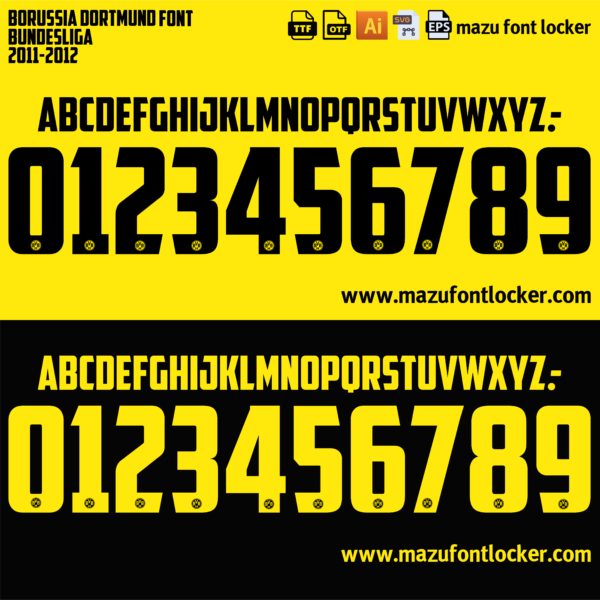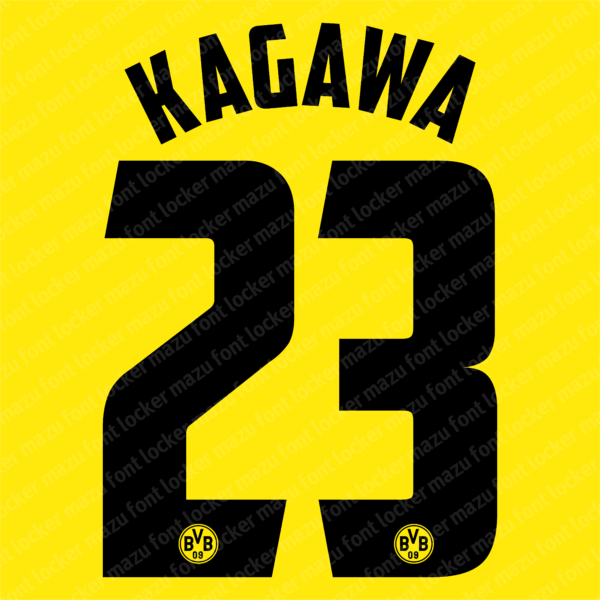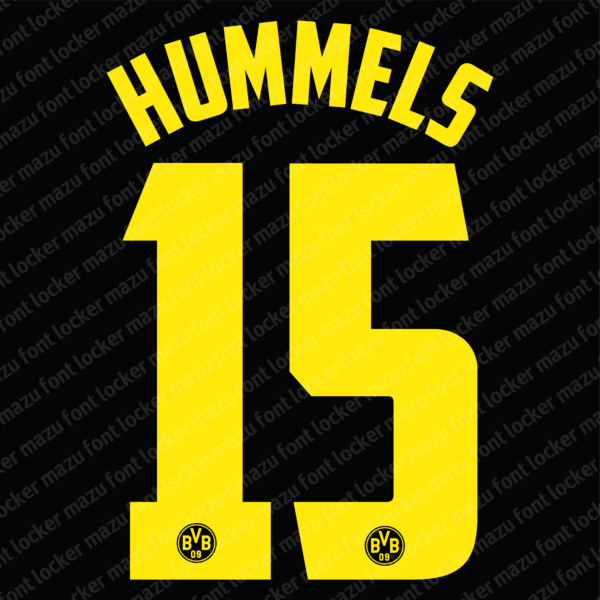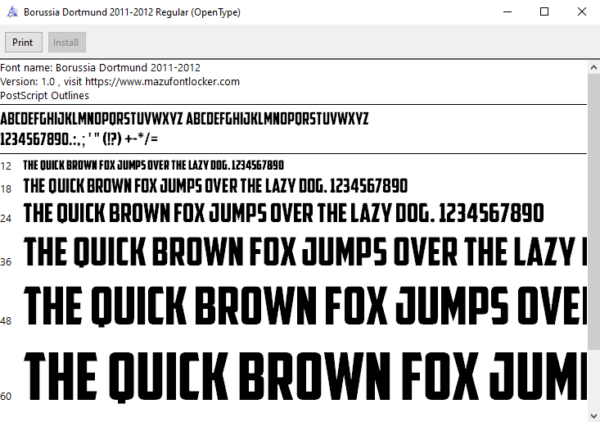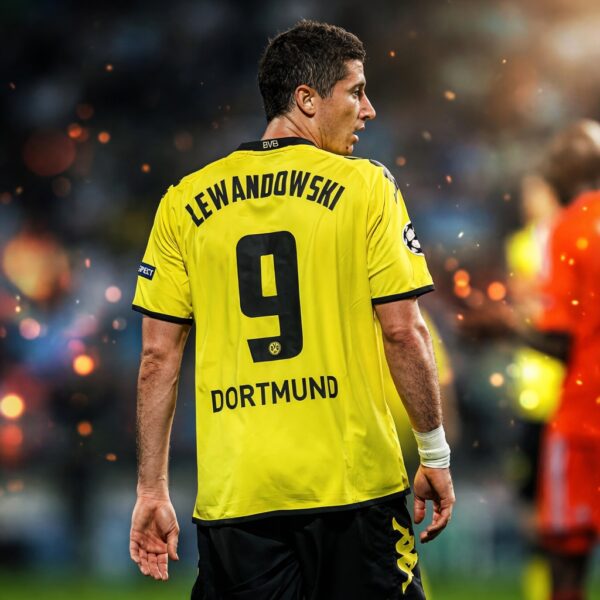
Borussia Dortmund 2011-2012 Font – Legendary Yellow Wall Masterpiece
Download the Borussia Dortmund 2011-2012 Font and bring the unforgettable spirit of the Yellow Wall straight into your designs. This iconic Borussia Dortmund 2011-2012 Font perfectly captures the bold, powerful typography used during one of the most legendary eras in club history. Every letter carries the same energy, passion, and dominance that defined that incredible 2011-2012 season.
Whether you’re creating football posters, social media content, merchandise designs, or fan projects, the Borussia Dortmund 2011-2012 Font delivers that authentic Bundesliga feel with sharp, dynamic characters that scream power and pride. The heavy weight and strong presence make it perfect for headlines, quotes, and eye-catching graphics that stand out instantly.
Borussia Dortmund 2011-2012 Font Vector
🔥 Borussia Dortmund 2011-2012 Font Features
- Authentic 2011-2012 Borussia Dortmund jersey lettering style
The authentic lettering style helps recreate the classic look of the Borussia Dortmund 2011-2012 kit with professional accuracy.
Unlike generic jersey fonts, this set is designed with a strong focus on authenticity and accuracy. Every detail is meticulously recreated based on the original match lettering style used by Borussia Dortmund during the iconic 2011-2012 season, helping designers and collectors create ultra-realistic football shirt designs that truly capture the spirit of that legendary era.
This Borussia Dortmund 2011-2012 font vector set is designed for authentic football jersey customization and works perfectly for retro football projects, collector designs, and professional sportswear artwork.